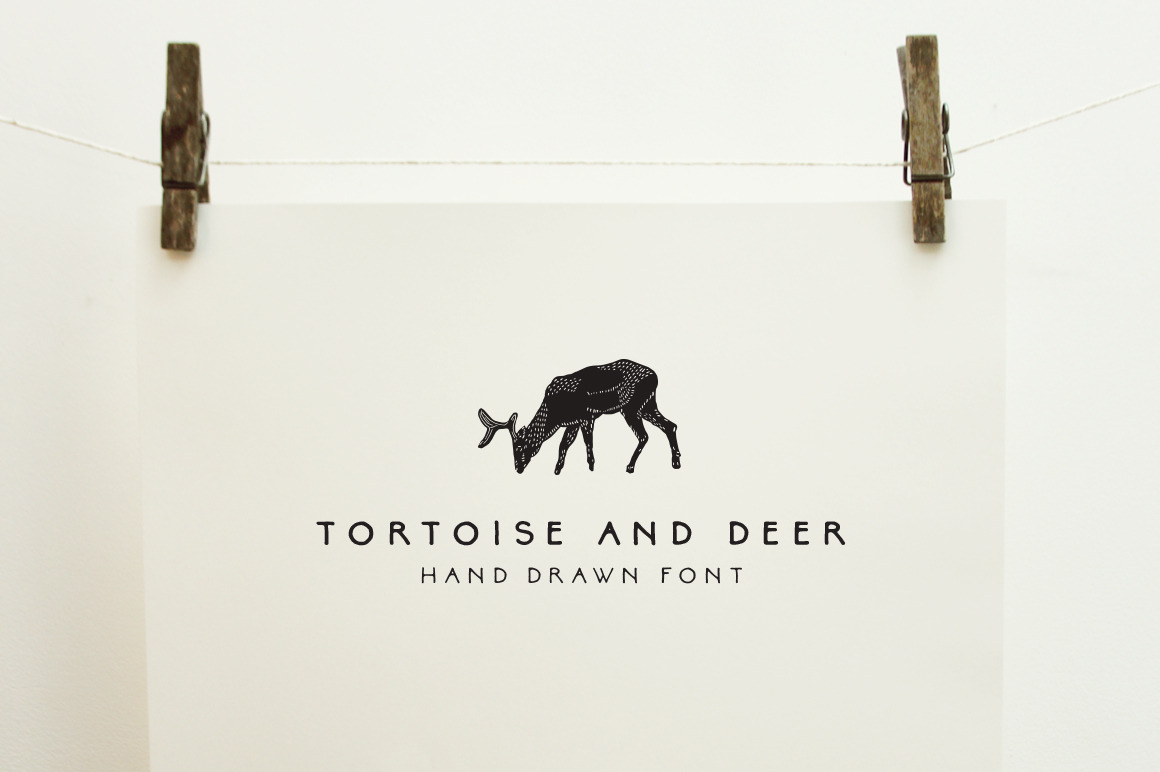
Tortoise and Deer Font Family
Tortoise and Deer
A hand-lettered, handmade, woodland and Scandinavian inspired display font. Use it to create a subtle and light look for minimal contemporary designs with a nod to nature. Perfect for logos, packaging and branding with an emphasis on contemporary and natural tones.
- All Caps Characters
- 2 weights (bold and regular)
- punctuation, symbols, numbers